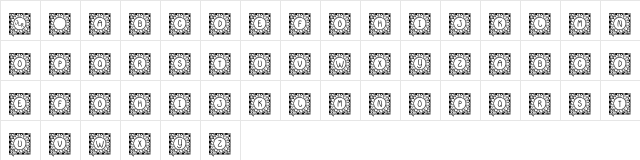
JLR Sunflower Regular
Design Context for JLR Sunflower Typeface
JLR Sunflower is a composed and adaptable typeface that performs quietly and consistently across a wide range of design contexts.